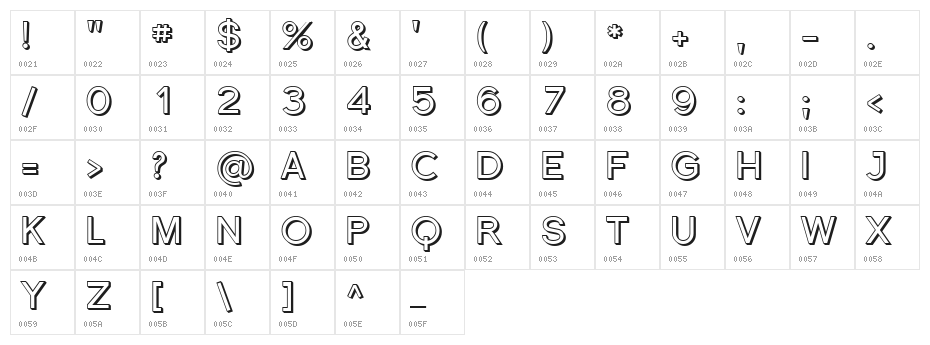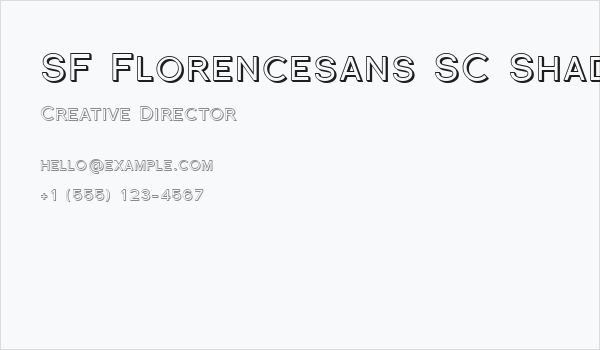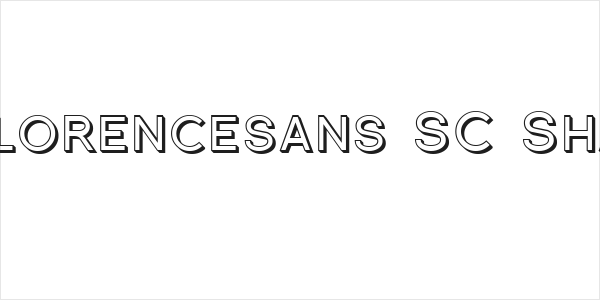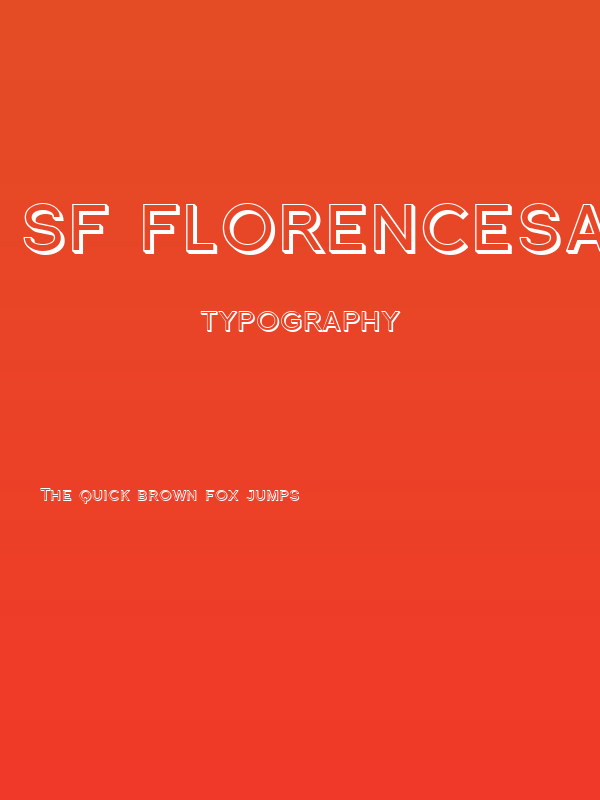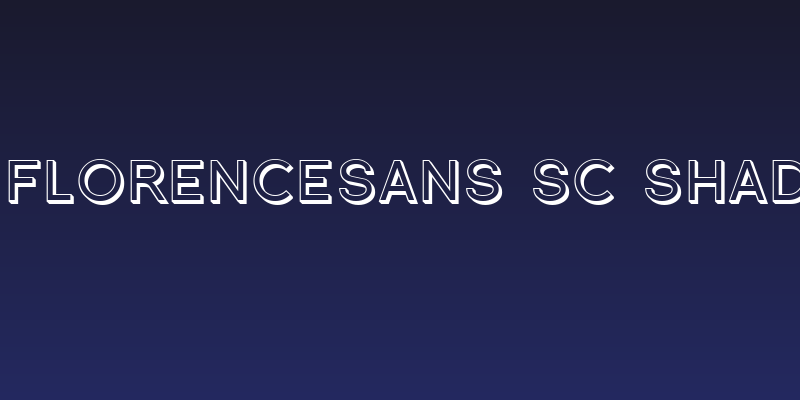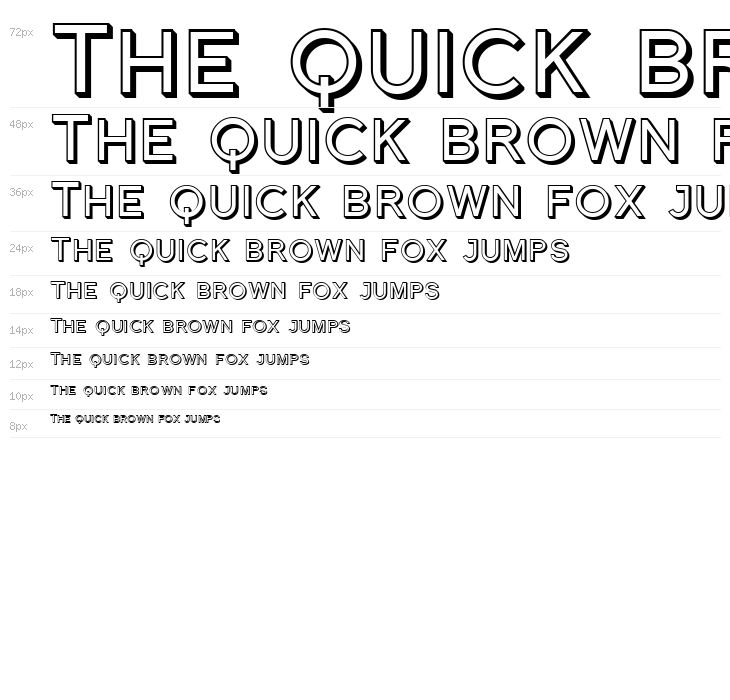
SF Florencesans SC Shaded Font
SF Florencesans SC Shaded Description
This font features a bold, sans-serif style with a unique shaded effect that gives it a three-dimensional appearance. The letters are uppercase and evenly spaced, with a clean and modern look. The shading adds depth, making it suitable for eye-catching designs. The numerals and special characters maintain the same bold and shaded characteristics, ensuring consistency across all elements. This font is ideal for projects that require a strong visual impact, such as posters, headlines, and branding materials.
| Proposed Projects | Ideal for posters, headlines, branding, and any design requiring a strong visual impact. |